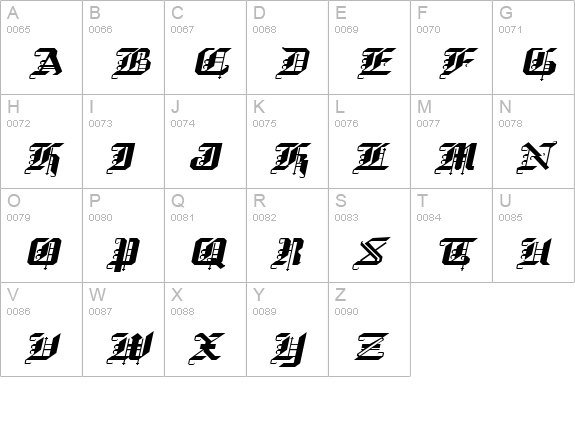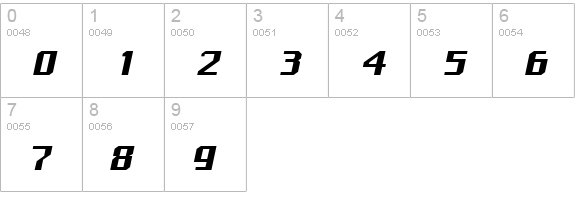
GothicExtended Italic Font Details
GothicExtended Italic is a distinctive, italic variant in the GothicExtended typeface family \xE2\x80\x94 well suited to design and typography projects.
The GothicExtended Italic font exudes an air of mystery and sophistication with its elegant and ornate design. Its elongated and slanted letterforms create a dramatic and captivating appearance, perfect for adding a touch of gothic flair to your projects. The graceful curves and intricate details of this font make it ideal for creating eye-catching headlines, titles, and decorative elements. What sets GothicExtended Italic apart is not only its striking appearance but also the fact that it is available for free download at FontsMarket.com. This means that you can easily access this unique and stylish font to elevate your designs without any cost. Whether you're working on a branding project, a poster design, or a website layout, GothicExtended Italic offers a versatile and distinctive option that is sure to make a statement. Download this font today and unleash its darkly enchanting charm in your creative endeavors.